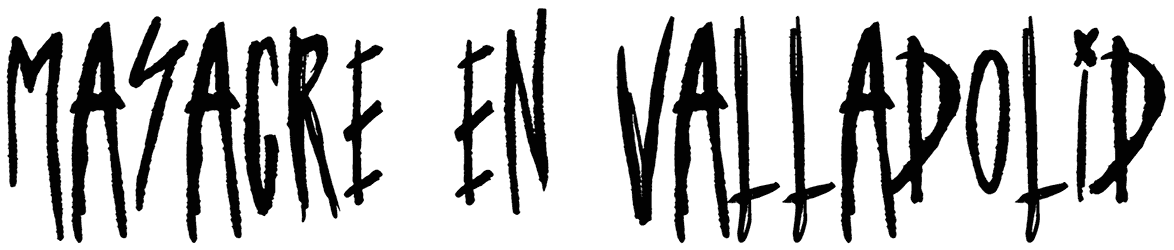
Masacre en Valladolid Font
To add a certain tone to your designs, Masacre en Valladolid has some great options. The narrow and protruding lines, without the presence of small letters, are what save you from the trap of mediocre fonts and open a new window to horror fonts.
Masacre en Valladolid.